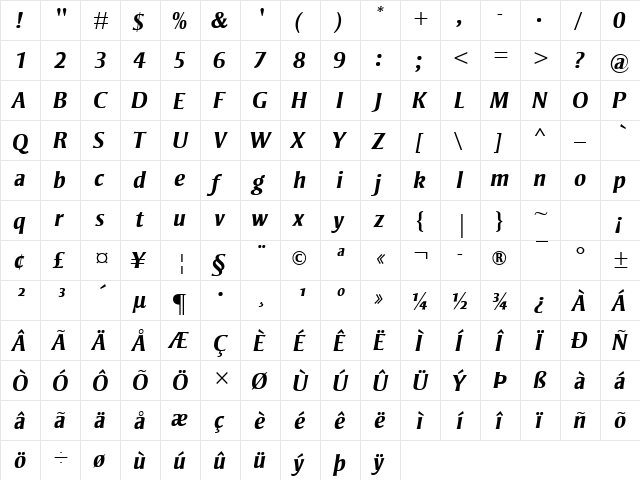
Strayhorn MT Bold Italic
Design Context for Strayhorn MT Typeface
Strayhorn MT offers clean, dependable letterforms without strong stylistic allegiance, making it a practical choice for designers who need flexibility. The slanted form adds forward momentum and visual energy. Its bold stroke weight gives it real presence on the page.
Pro Tip: Use Strayhorn MT for emphasis, pull quotes, and subheadings where its slanted energy can add rhythm to the layout.